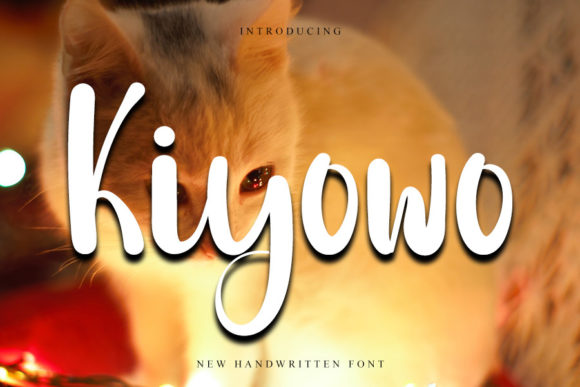
Indulge in the enchanting world of Kiyowo Font, a captivating script font that embodies the essence of timeless elegance. Inspired by the graceful strokes of classic calligraphy, Kiyowo exudes an air of sophistication and charm that will elevate your design endeavors.
With each meticulously crafted letterform, Kiyowo dances across your screen, carrying your words with an unmatched allure. Its balanced and varied design ensures that your titles and headlines command attention, leaving an unforgettable impression on your audience.
Unleash your creativity with Kiyowo's versatile nature, as it seamlessly adapts to a myriad of design styles. Whether gracing the pages of your latest novel, adorning the packaging of a luxurious brand, or adding a touch of artistry to your social media posts, Kiyowo transforms your projects into masterpieces.
Beyond its aesthetic appeal, Kiyowo embodies the power to evoke emotion and convey your message with unparalleled clarity. Its subtly nuanced curves and elegant flourishes add depth and character to your words, captivating your readers from the very first glance.